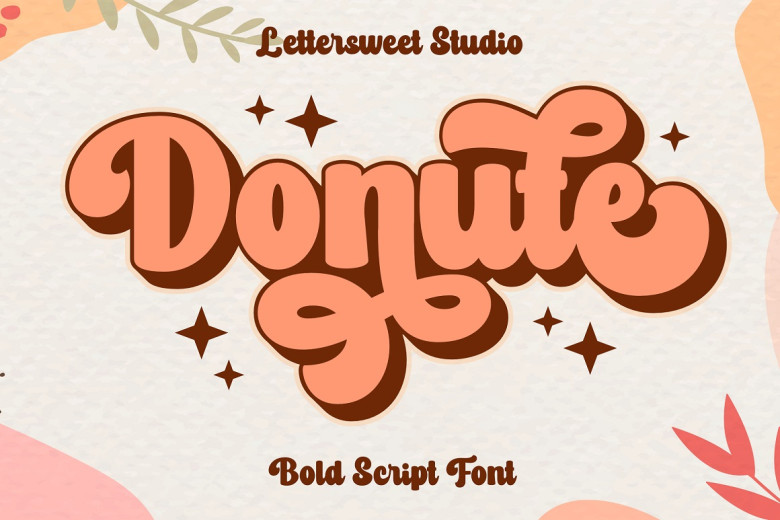
Donute Font
Donute font features a classic retro aesthetic with its stunning retro font design and cool flow. The font’s beautifully balanced characters make it the ideal match for many designs; plus its PUA-encoding allows easy access to all its glyphs and Swashes!
Donute Bold Script Font